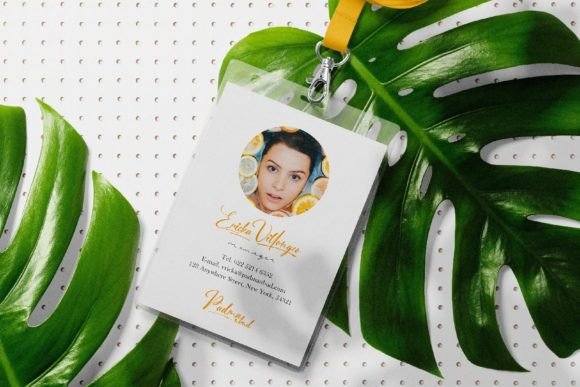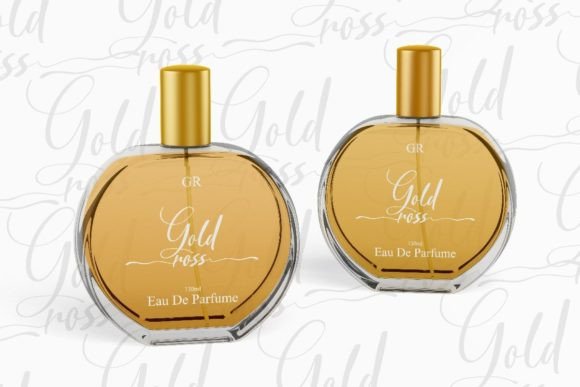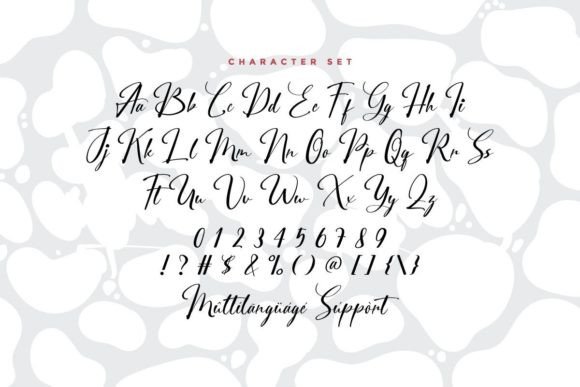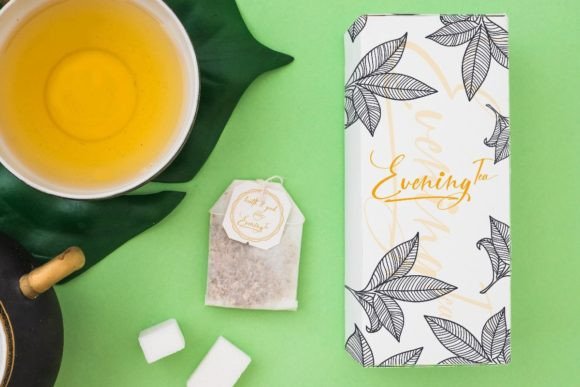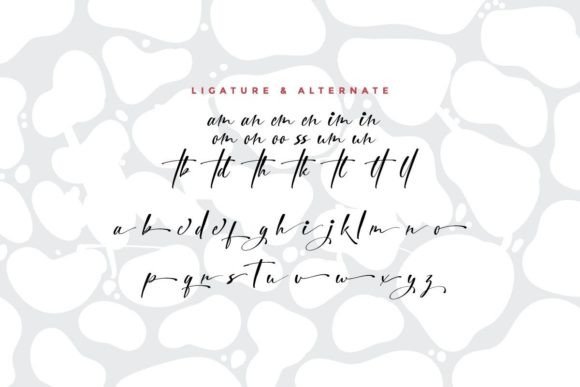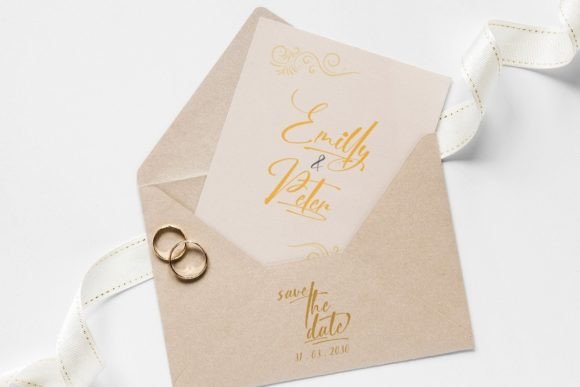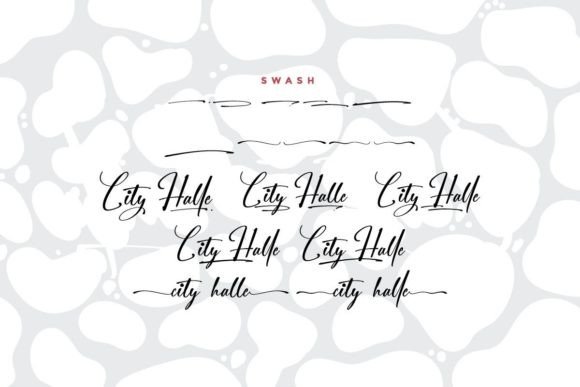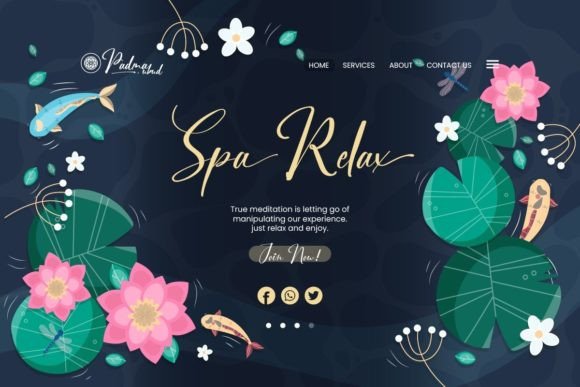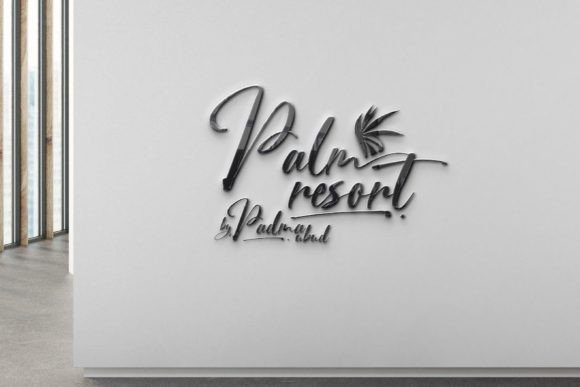
City Halle Font
About City Halle Font
City Halle is a stylish and exceptionally elegant script font that adds a touch of sophistication to your designs. Its graceful and flowing letterforms make it perfect for a variety of applications, including wedding invitations, thank you cards, quotes, greeting cards, logos, business cards, and any other design that requires a handwritten touch.
The font’s stylish and elegant appearance lends a sense of class and luxury to your projects, making them visually stunning and appealing to the audience. Whether you’re creating elegant wedding stationery, heartfelt thank you cards, or chic business branding, City Halle enhances the overall aesthetic, adding a touch of refinement to your designs.
City Halle’s PUA (Private Use Area) encoding allows easy access to all the available glyphs and swashes. This feature provides you with the freedom to customize your text with unique and decorative elements, enabling you to create personalized and visually striking compositions. With a variety of elegant glyphs and swashes, City Halle empowers you to design custom lettering that perfectly suits the tone and style of your projects.
Incorporating City Halle into your designs elevates your visual communication, creating a sophisticated and memorable impression. Its elegant and flowing script adds a sense of timelessness and charm, making your designs stand out with a touch of class and elegance.
Embrace the stylish and elegant nature of City Halle, and watch how it transforms your projects into statements of refinement and sophistication. Whether you’re working on wedding materials, greeting cards, business branding, or any other elegant design, City Halle adds a touch of luxury and elegance, enhancing the overall appeal of your creations.